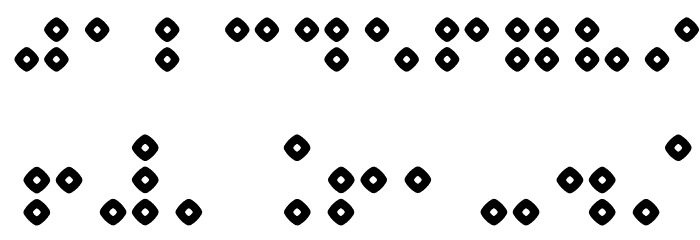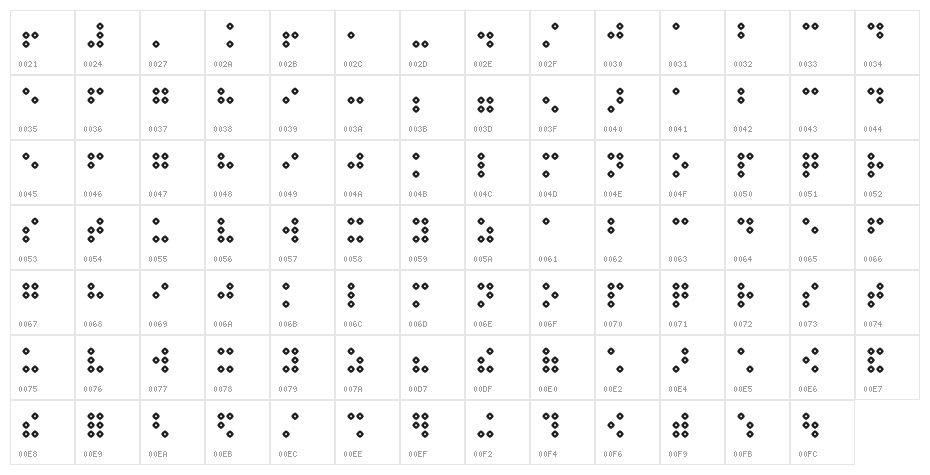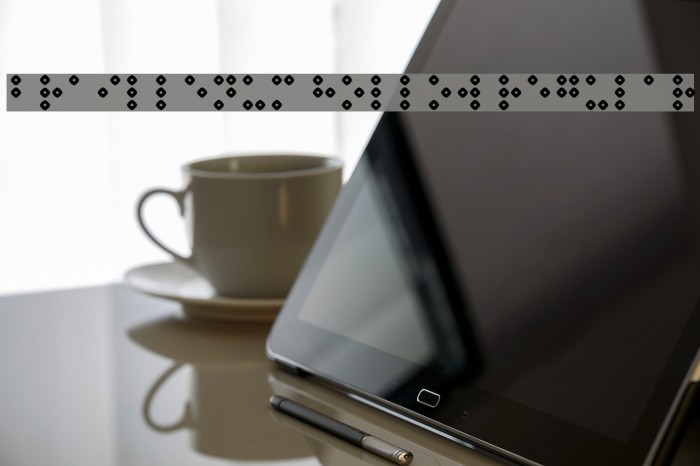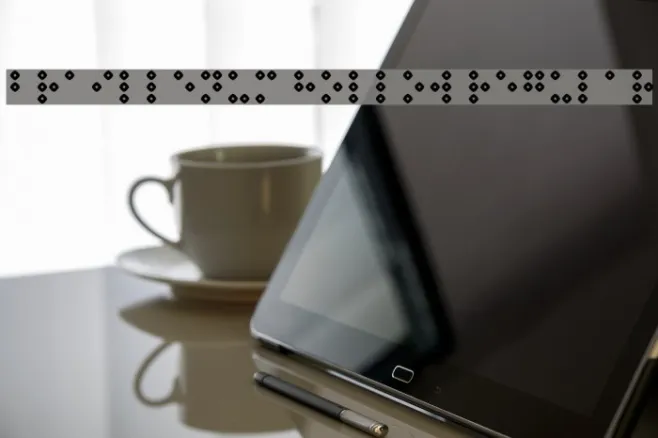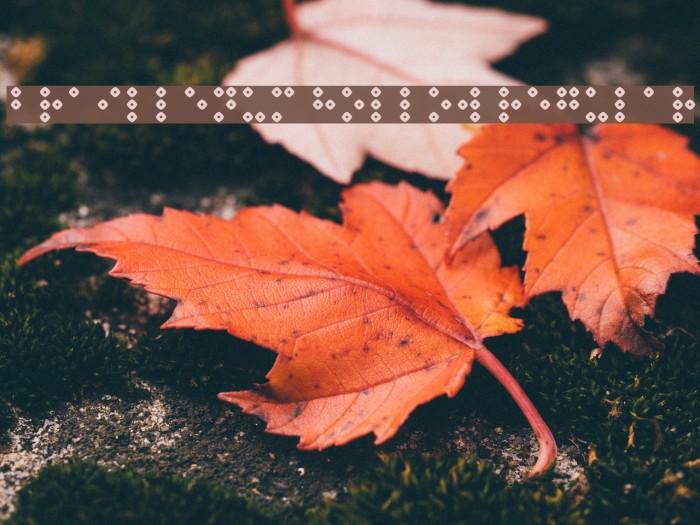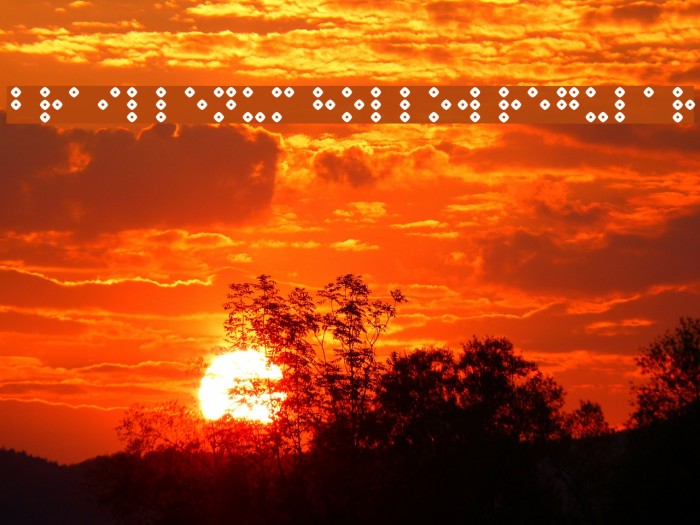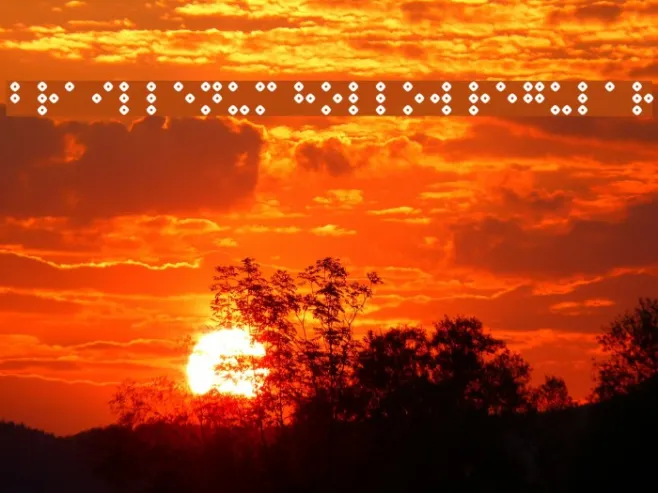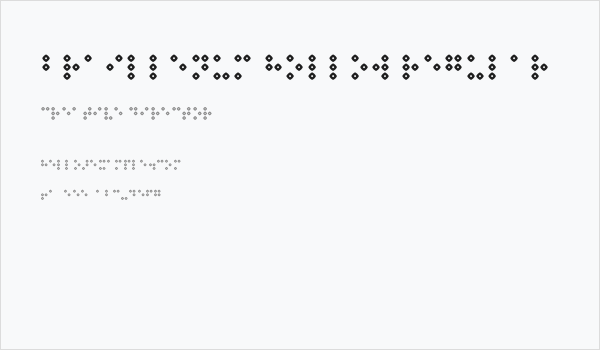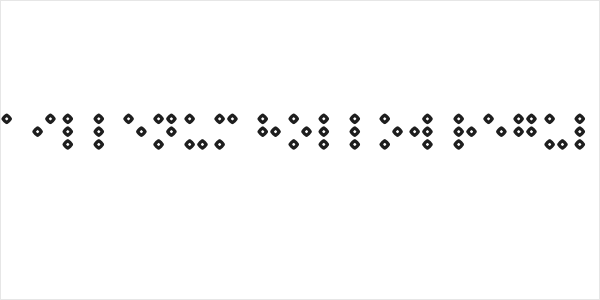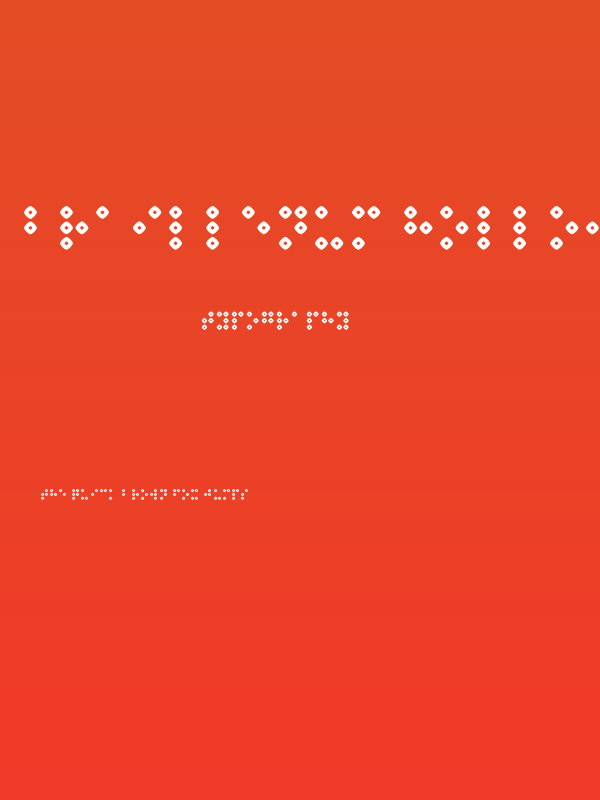
Braillenum Hollow Regular Font
Braillenum Hollow Regular Description
This is a Braille font designed to visually represent Braille characters in a hollow, regular style. Each character is composed of a grid of dots, with some dots filled to represent different letters, numbers, and symbols. The hollow design gives a unique aesthetic, making it suitable for visual representation rather than tactile reading. The spacing between the dots is consistent, ensuring clarity and readability for those familiar with Braille. This font is particularly useful for educational purposes, allowing sighted individuals to learn and understand Braille patterns.
| Use Case | Educational materials, visual aids. |
| Proposed Projects | Educational materials, visual aids for Braille learning, accessible design projects. |